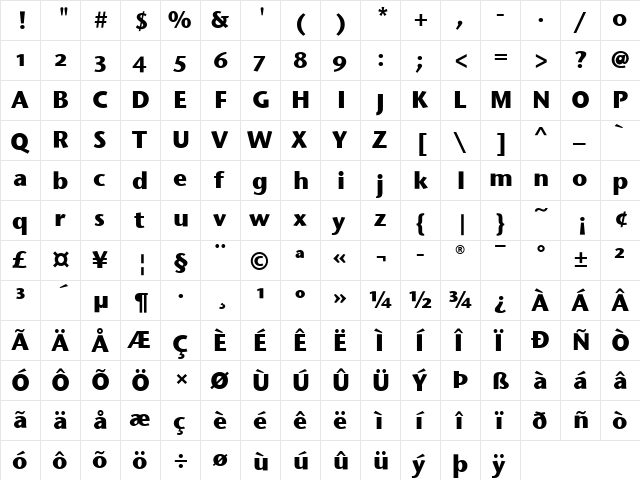
StoneSansOSITC Bold Font Preview
StoneSansOSITC Bold
StoneSansOSITC Bold Font Details
| Foundry | International Typeface Corporation |
Design Context for StoneSansOSITC Typeface
StoneSansOSITC offers clean, dependable letterforms without strong stylistic allegiance, making it a practical choice for designers who need flexibility. Its bold stroke weight gives it real presence on the page.